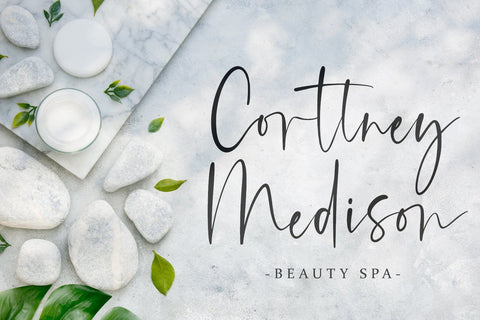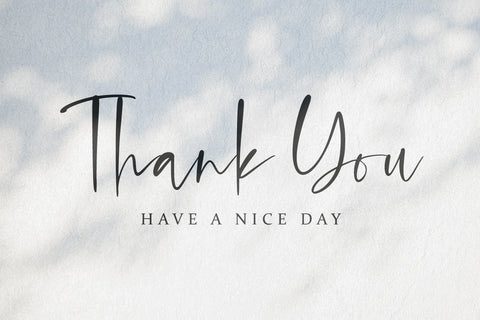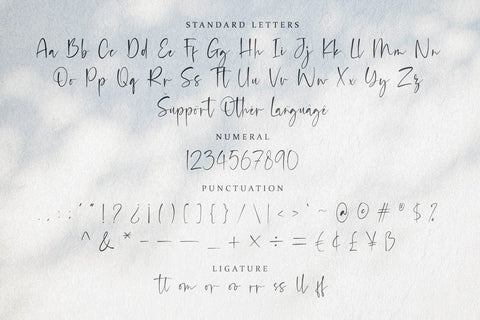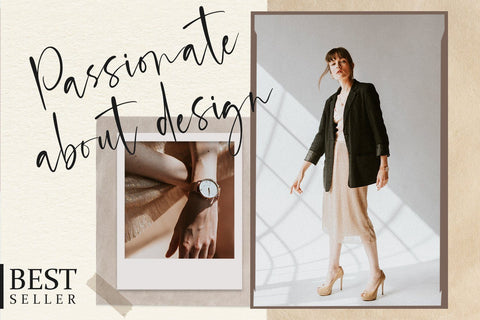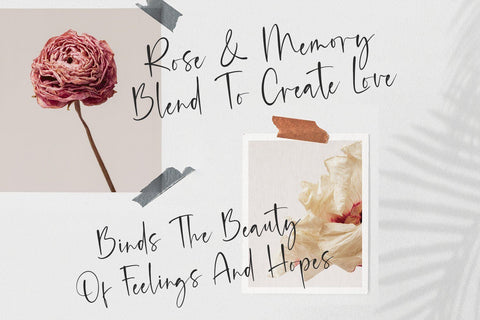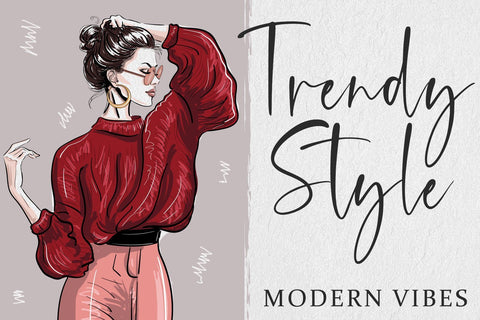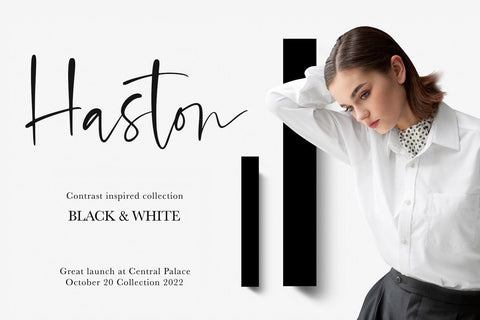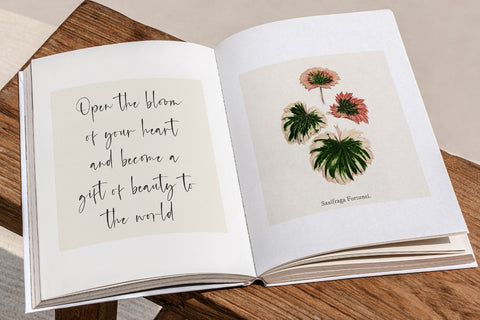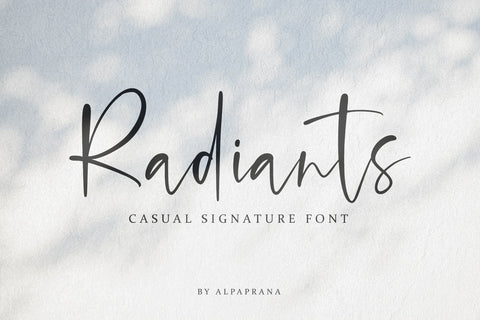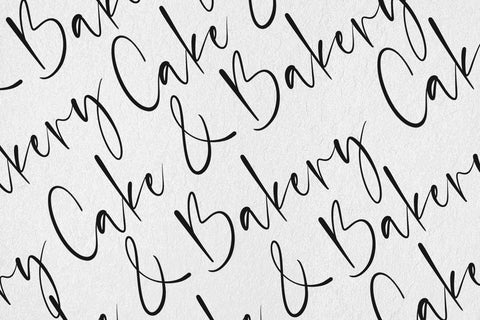
Radiants - Casual Signature Font
Radiants is a stunning signature font with authentic and casual feels. It will be perfectly used for Branding, Logo Design, Lettering, Logotype, Clothing, Poster, magazine, packaging, posters, shopping bags, t-shirts, book covers, photography, special events and other design project.